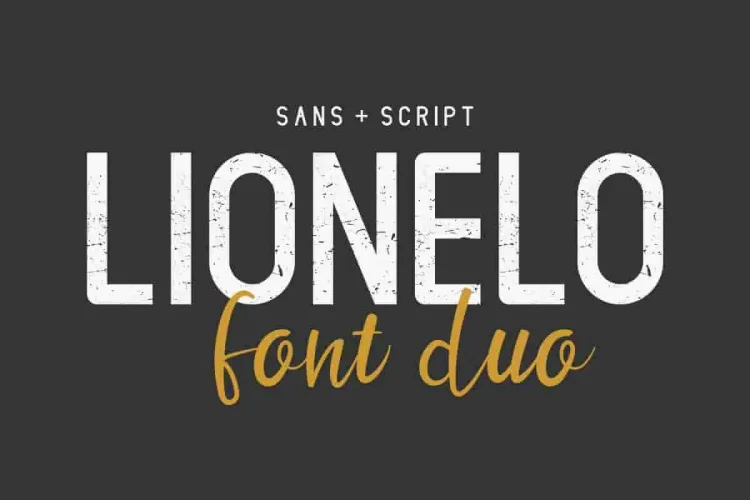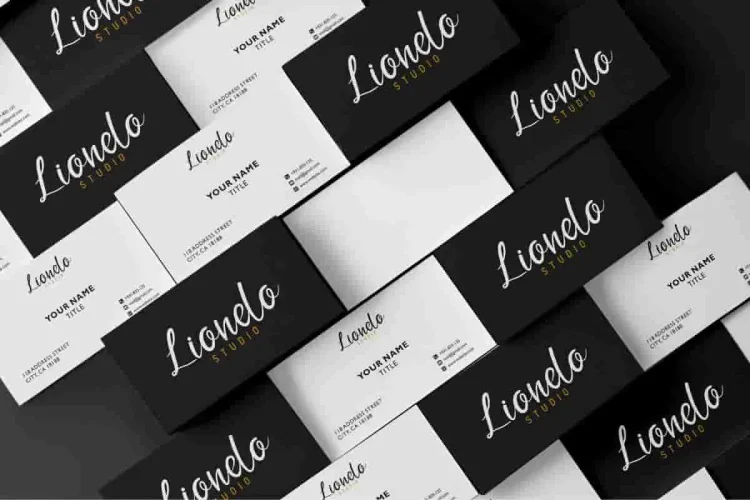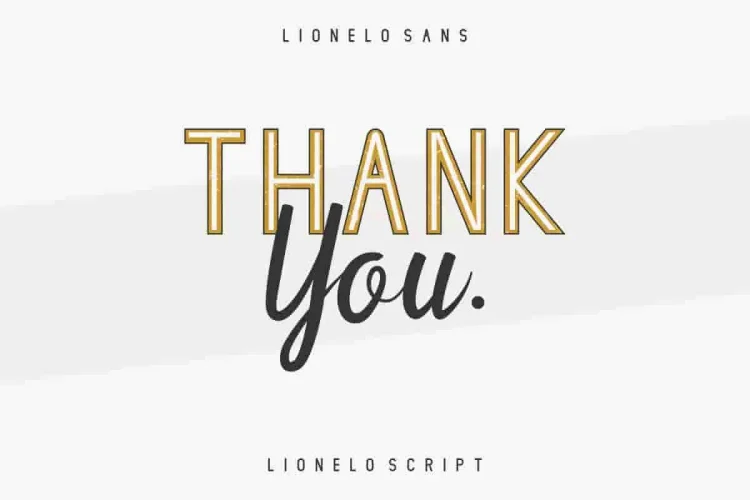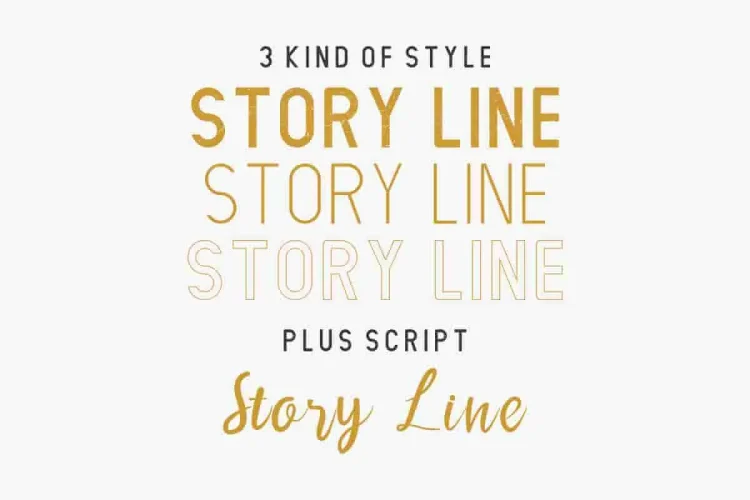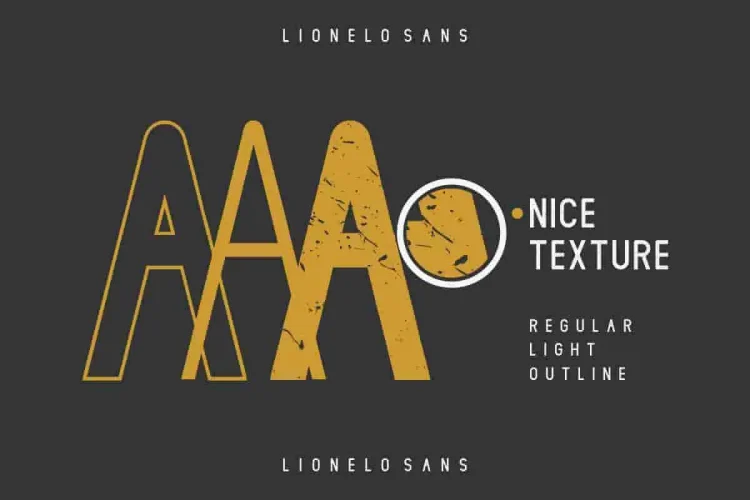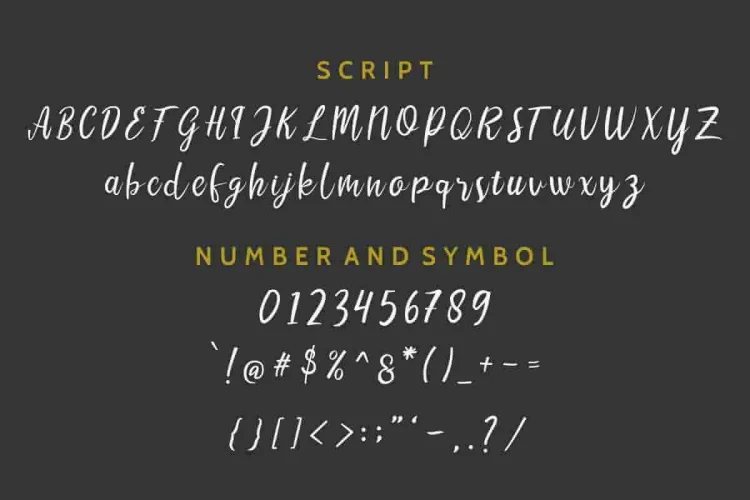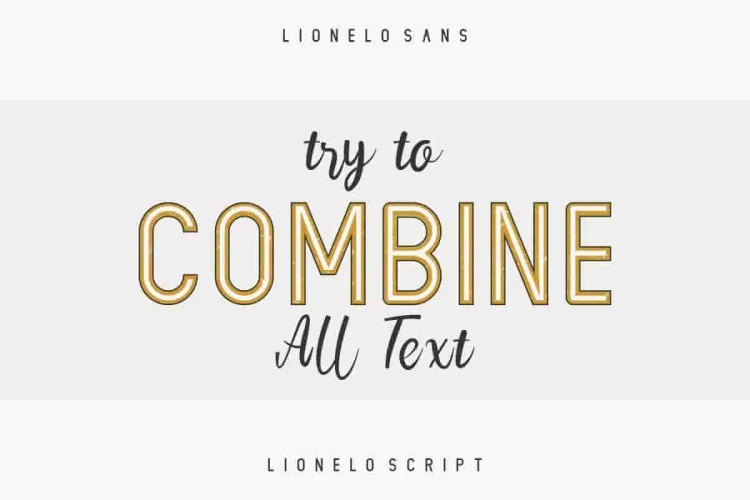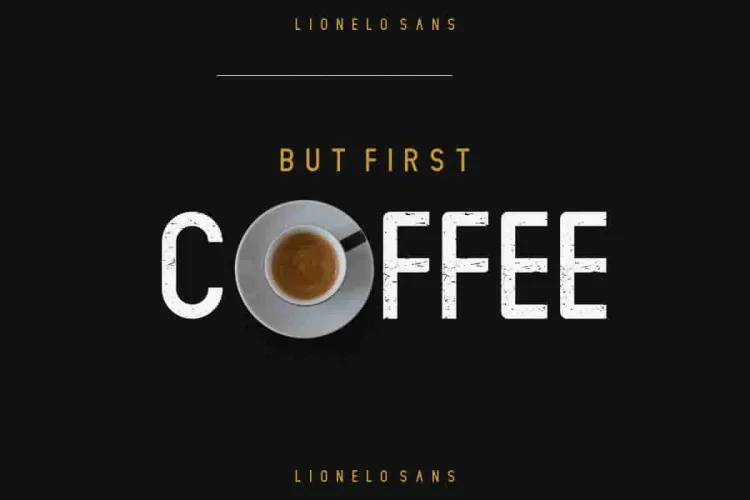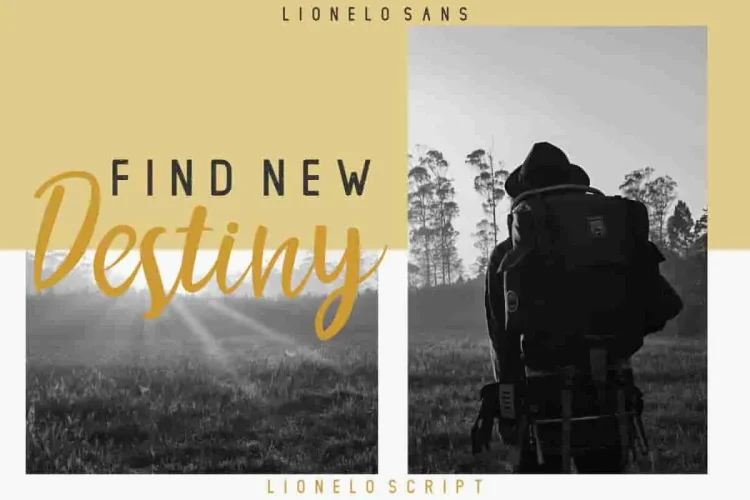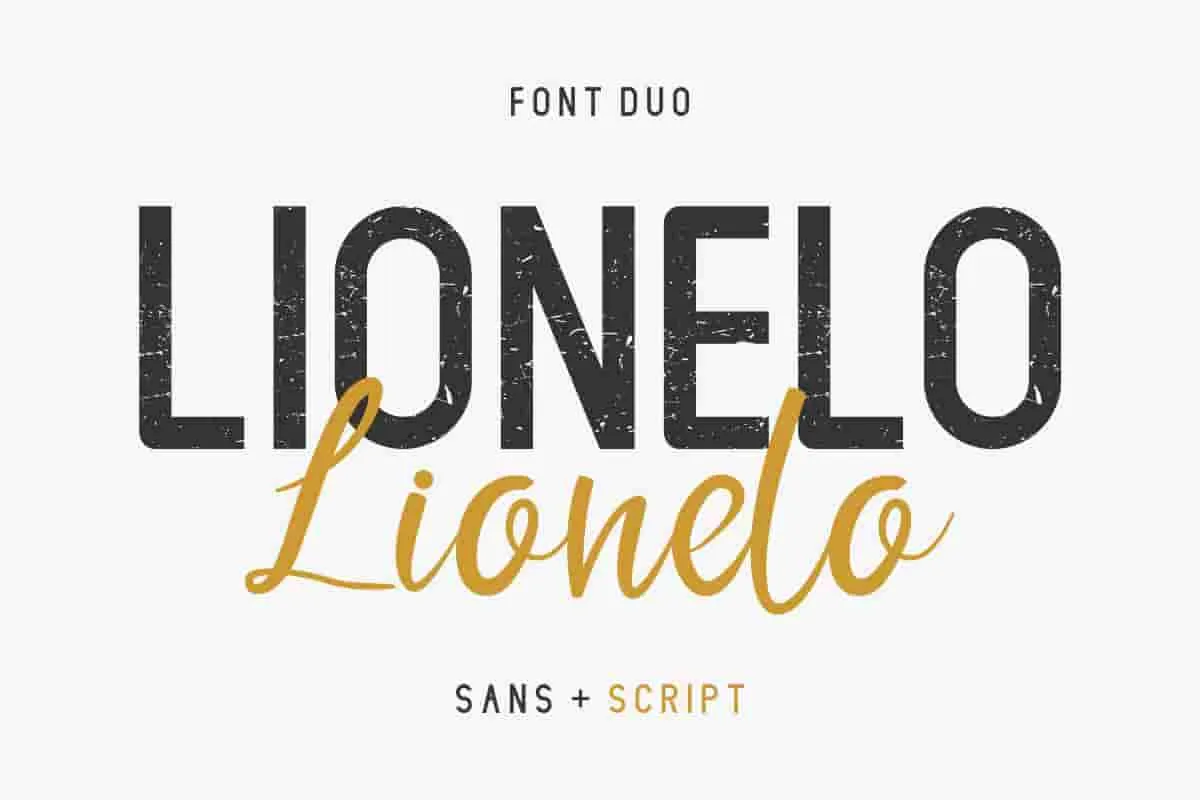
LIONELLO Special Vintage Sans Serif Font
Hello Everyone! Introducing our newest font : LIONELLO
FOUR FONTS INCLUDED
This is a vintage sans serif and stylish script handwriting font. Especially for elegant and personal designs it has a unique, elegant, classic and stylish glyph.
Will be awesome for almost any project.
🔍 What Makes LIONELLO Truly Stand Out?
LIONELLO includes four unique fonts:
• Regular – clean and bold for professional impact
• Light – elegant with a soft, modern presence
• Outline – stylish and airy, great for vintage aesthetics
• Script – flowing handwritten style, perfect for a personal touch
Great for branding, logo, stationery, business card, signage, flyer, brochure, invitation, wedding, promo, ads etc.
• Beautiful texture and versatility for print & digital use
There are many industries that is suitable for this font : wedding, cafe, music, restaurant, consultant, real estate, law firm, etc